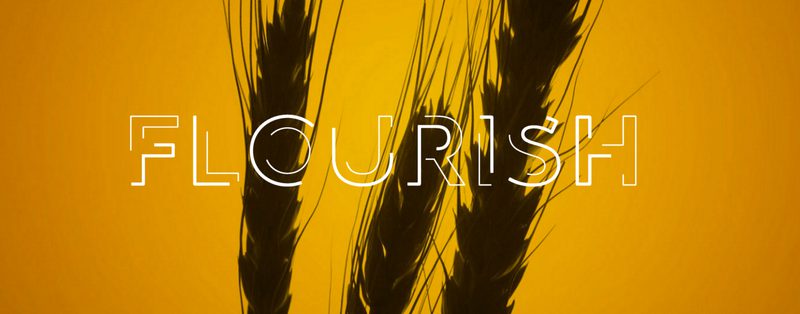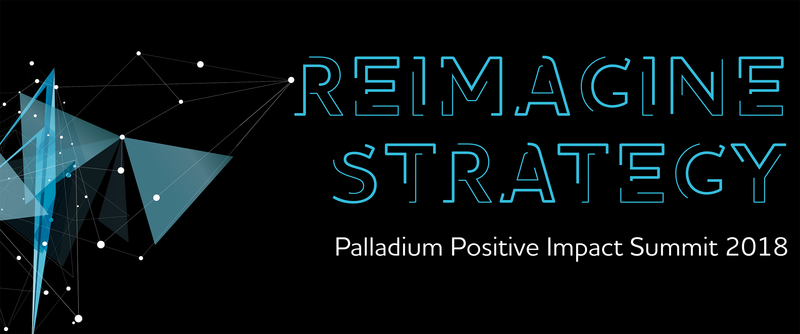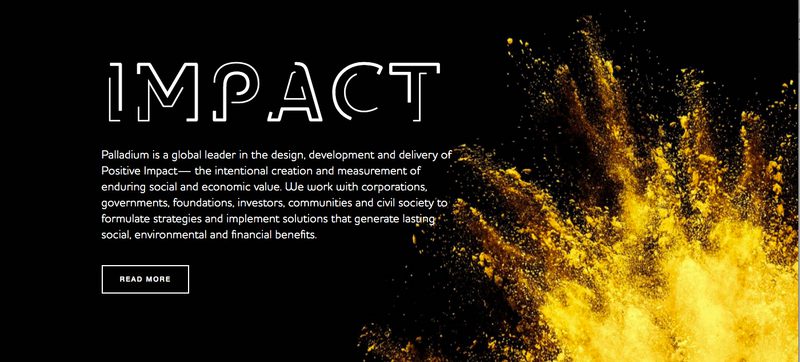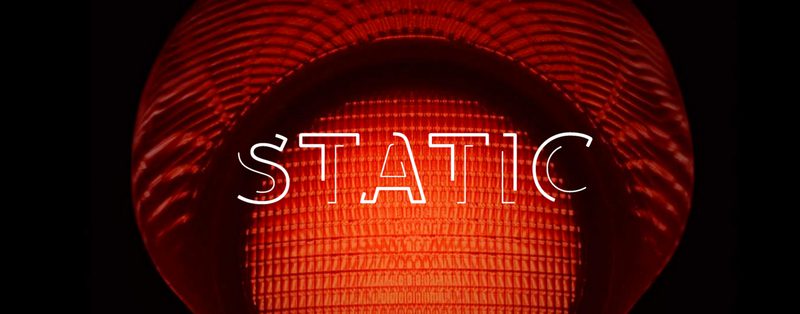
Houschka Possible
Custom fonts for Palladium Group.
Not every bespoke typeface we produce is crafted from scratch. We also offer clients the option of customising any of our G-Type retail fonts for their own exclusive use.
One such example is global services provider the Palladium Group who are using our Houschka webfonts on their site but also fancied an eye-catching display face to accompany them.
Step forward Houschka Possible, three all caps headline fonts with varying outlines that provide the necessary impact Palladium were after. Paired with some stunning imagery these new custom fonts light up their media and marketing collateral, branding the organisation in a very positive and effective manner.